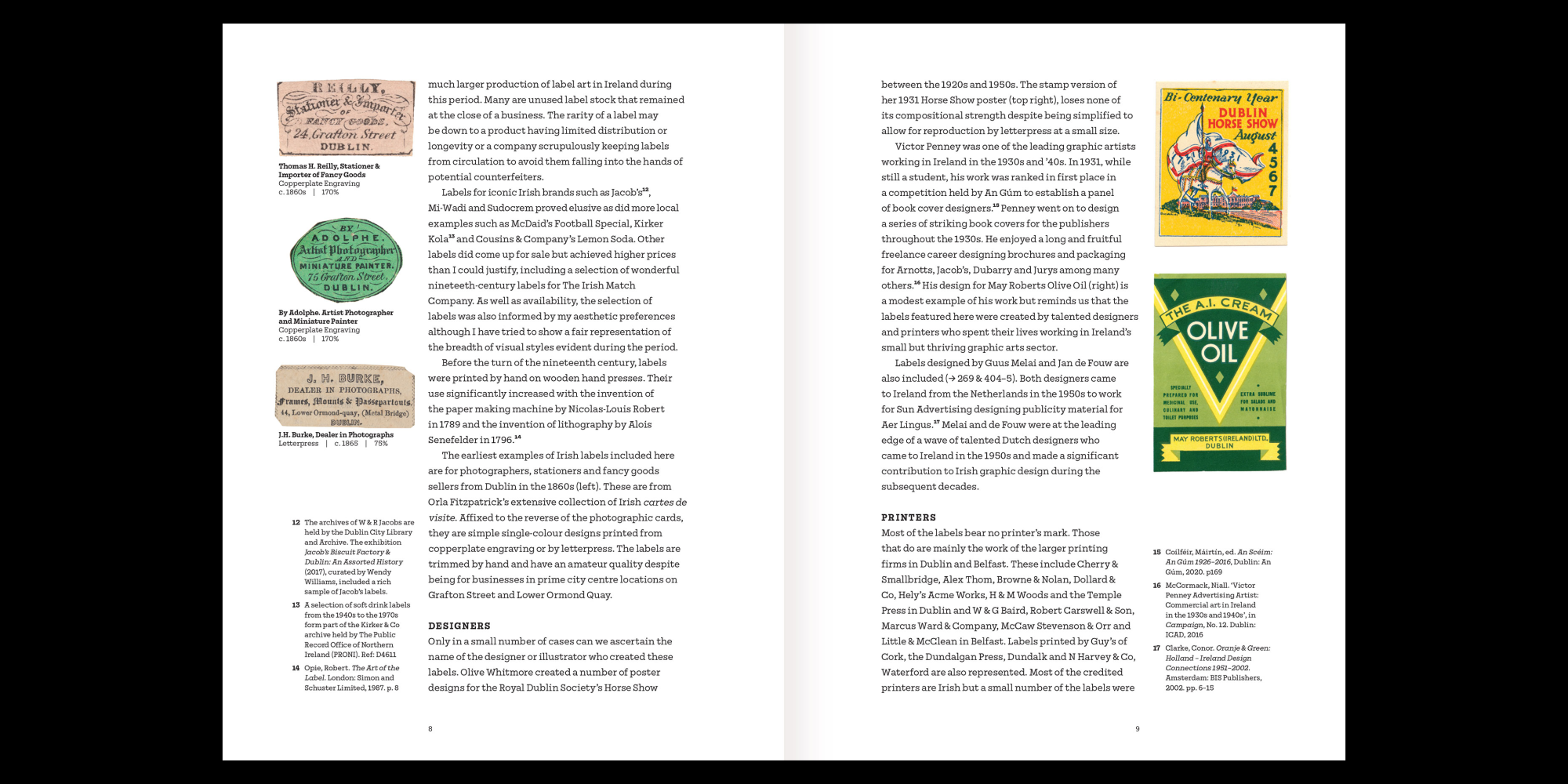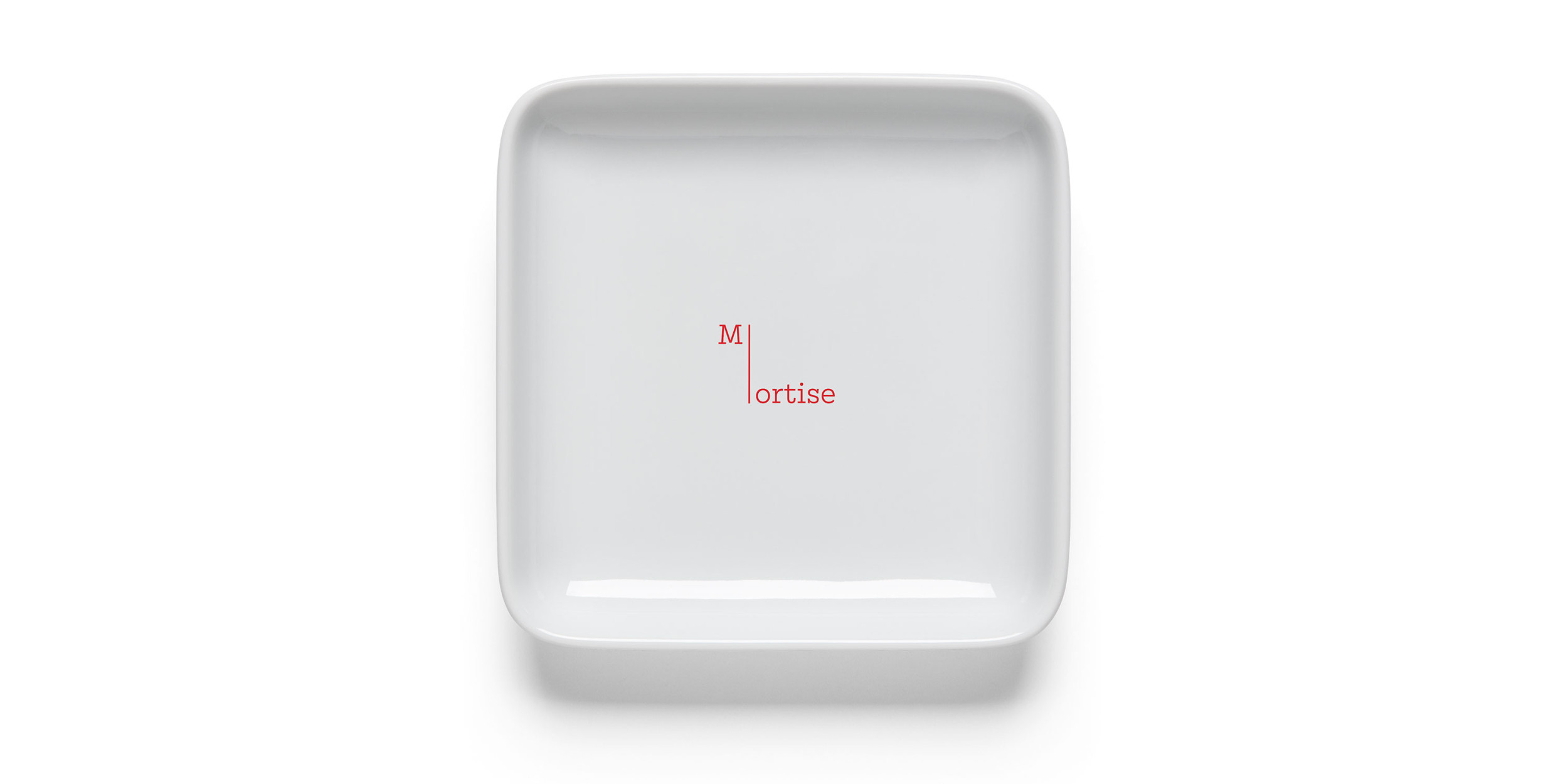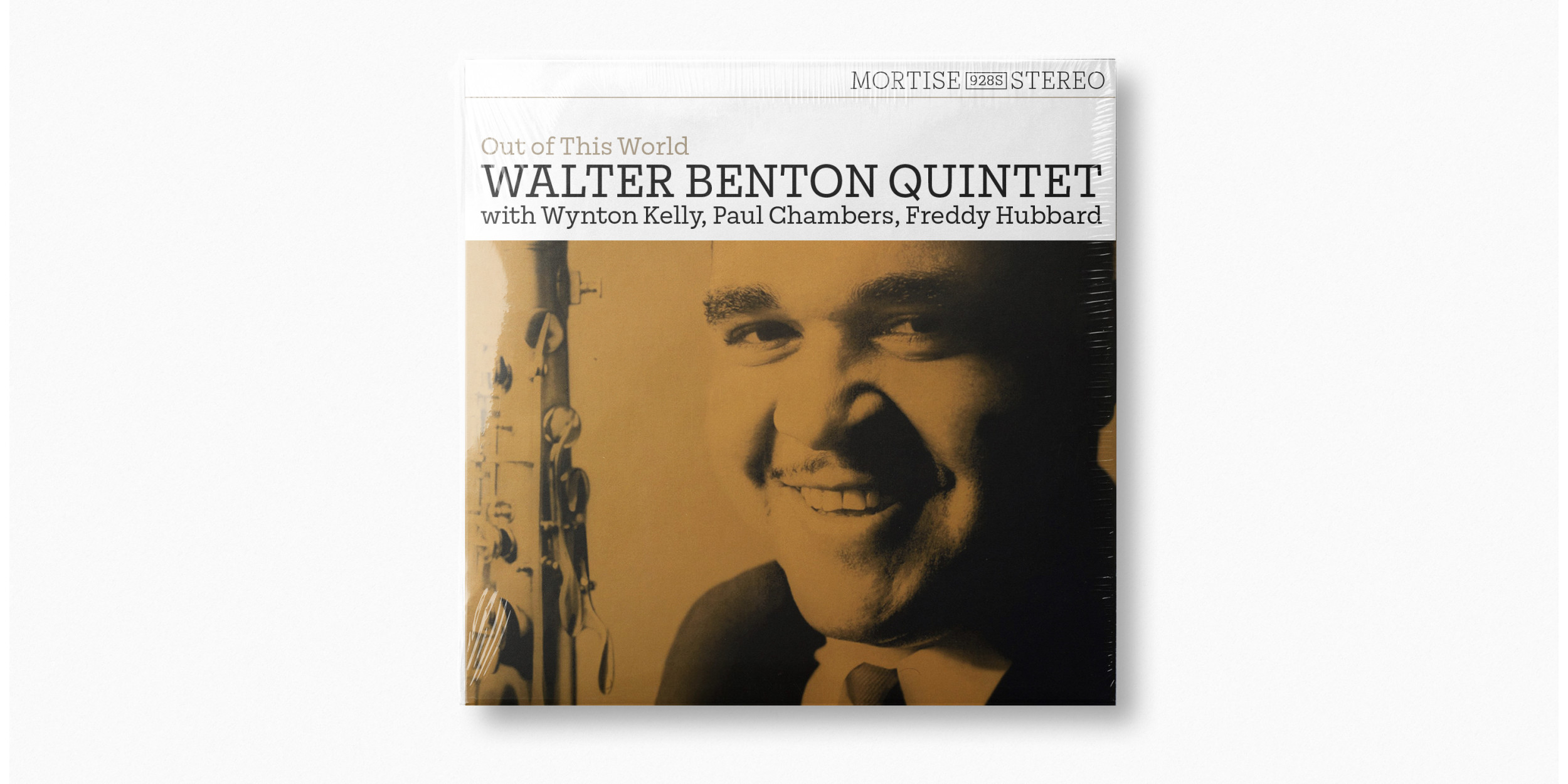
Mortise
To mortise is “to join or fasten securely.” Created by an aspiring furniture-maker and an ageing typographer, Mortise is a solidly constructed slab serif that marks Signal’s first collaboration with outside designers. A generous x-height, open counters, wide proportions, and monoline strokes make it readable and practical, while the long, slightly curved vertical serifs give it a raffish, mustache-twirling air. The X-Light is neat and refined and holds the page nicely; the middle weights are sturdy and direct; and the broad, blocky serifs on the X-Bold are exuberant and perhaps a bit rowdy. Available in six carefully crafted weights, Mortise is both a fresh new face and a versatile addition to the venerable slab serif genre. Designed by Seán Mongey at Post and Max Phillips.